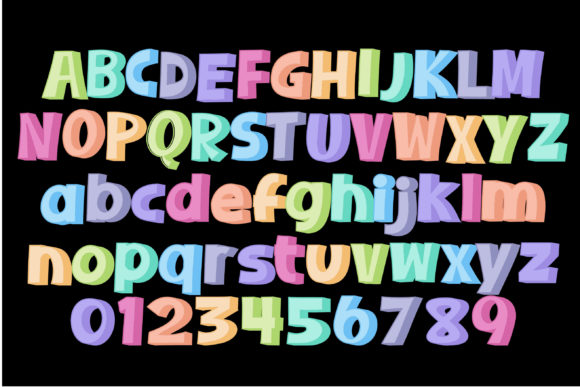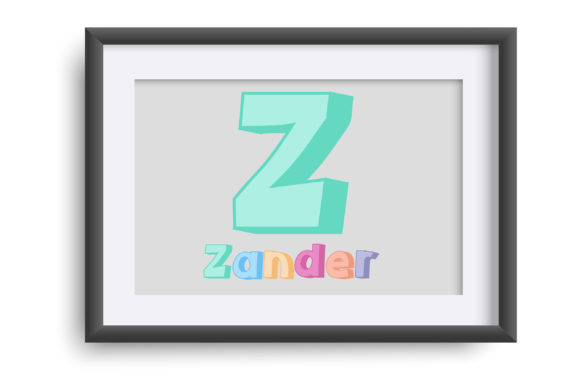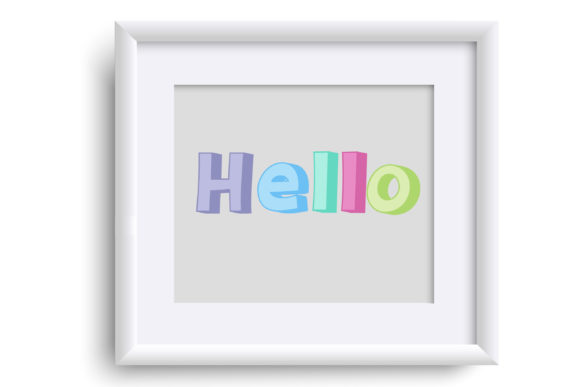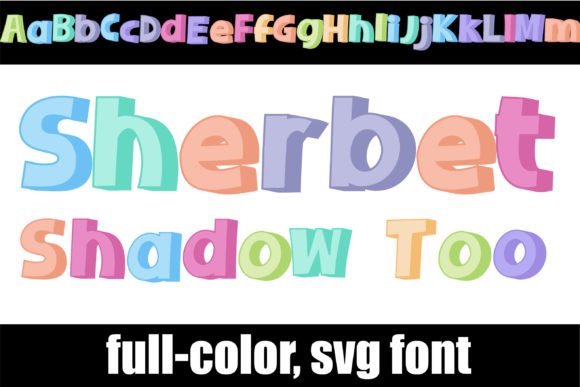
Introduction to Sherbet Shadow Too Font
This full-color font features blocky, pastel lettering with a pastel shadow on each letter.
There is a second version of each upper and lowercase letter accessed through your alt cases available through your system’s character map OpenType full-color (SVG) fonts are installed like any normal .
Key Features of Sherbet Shadow Too Font
Why Choose Sherbet Shadow Too Font?